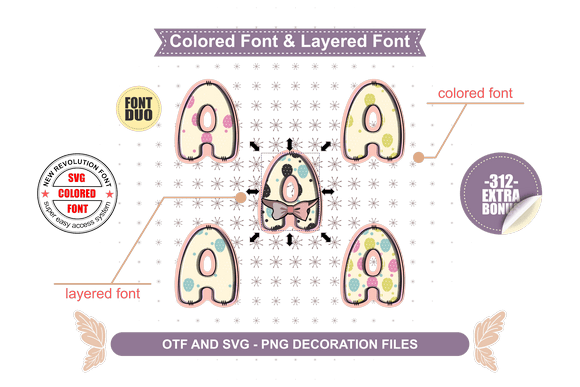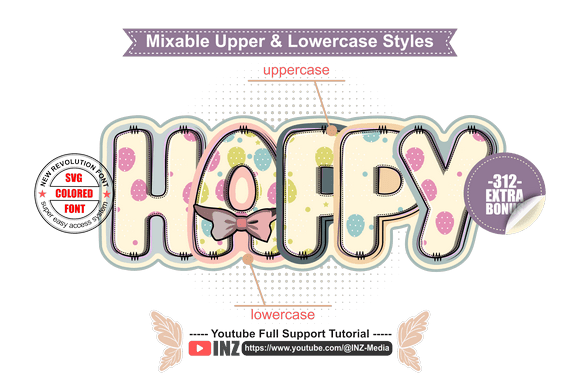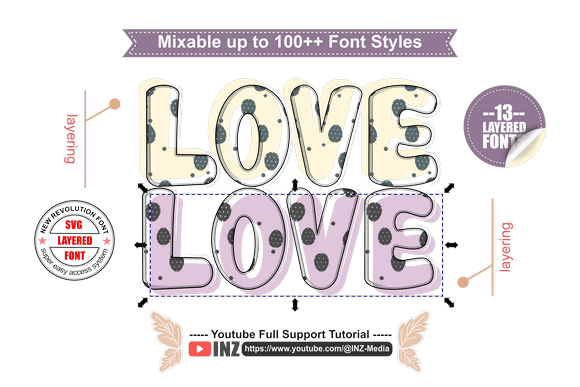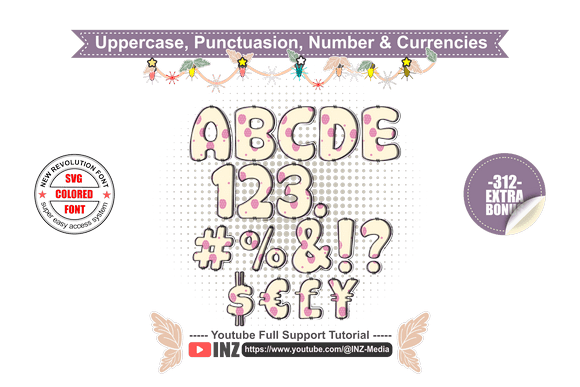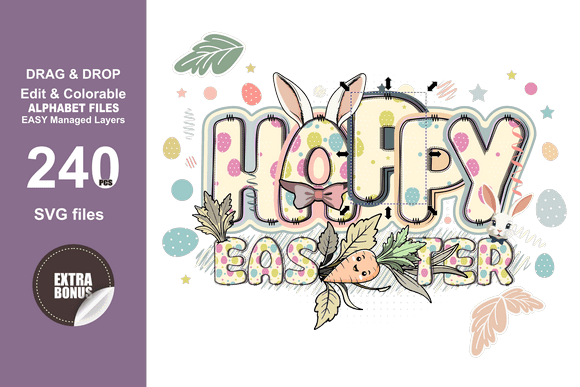
Introducing Happy Easter Bundle Font: Add a Touch of Easter Cheer to Your Designs!
Are you looking for a unique and festive font to elevate your Easter-themed designs? Look no further! We’re excited to introduce “Happy Easter,” a delightful bundle font that combines cute style with Easter cheer. This charming font is perfect for designers, crafters, and anyone looking to add a touch of springtime fun to their projects.
A Nostalgic Pastel Color Scheme and Charming Easter Egg Patterns
The Happy Easter Font features a nostalgic pastel color scheme that’s reminiscent of Easter mornings. The soft, delicate hues evoke a sense of nostalgia and playfulness, making it perfect for Easter-themed designs. But that’s not all – this Color Font also comes with charming Easter egg patterns that will add a distinctive touch to your projects. Whether you’re creating Easter posters, quotes, t-shirts, or custom names, this font is sure to impress.
Transform Easter into Cute Style with Happy Easter Font
With the Happy Easter Font, you can transform your Easter designs into cute and playful creations that are sure to delight. The font’s unique blend of cute style and Easter cheer makes it perfect for a wide range of projects, from DIY crafts to commercial designs. Whether you’re a professional designer or a crafter, this font is sure to inspire your creativity and help you create stunning Easter-themed designs.
Enhance Your Designs with 72 Easter Decorations
But that’s not all – the Happy Easter Bundle Font also comes with 72 included Easter decorations that will add an extra touch of fun to your designs. These decorations are perfect for adding a little something extra to your Easter posters, quotes, t-shirts, and more. With so many options to choose from, you’re sure to find the perfect decoration to match your design style.
Ideal for Easter Posters, Quotes, T-Shirts, and More
The Happy Easter Font is ideal for a wide range of Easter-themed projects, including:
- Easter posters: Create eye-catching posters that will grab attention and spread Easter cheer.
- Quotes: Add a touch of Easter fun to your inspirational quotes and sayings.
- T-shirts: Design custom Easter t-shirts that are perfect for springtime celebrations.
- Custom names: Create personalized Easter cards and gifts with custom names and decorations.
- DIY crafts: Add a touch of Easter fun to your DIY crafts, such as Easter baskets, eggs, and more.
Bring a Vibrant, Vintage Touch to Your Springtime Celebrations
The Happy Easter Font brings a vibrant, vintage touch to all your springtime celebrations. The font’s unique blend of cute style and Easter cheer makes it perfect for creating stunning Easter-themed designs that are sure to impress. Whether you’re a professional designer or a crafter, this font is sure to inspire your creativity and help you create unforgettable Easter designs.
Get Ready to Hop into Easter with Happy Easter Bundle Font!
Don’t miss out on the opportunity to elevate your Easter designs with the Happy Easter Bundle Font. With its unique blend of cute style and Easter cheer, this font is sure to become a favorite in your design collection. So why wait? Get ready to hop into Easter with the Happy Easter Bundle Font and make your designs shine!
- Unique blend of cute style and Easter cheer
- Nostalgic pastel color scheme
- Charming Easter egg patterns
- 72 included Easter decorations
- Ideal for Easter posters, quotes, t-shirts, custom names, DIY crafts, and more
- Vibrant, vintage touch to springtime celebrations